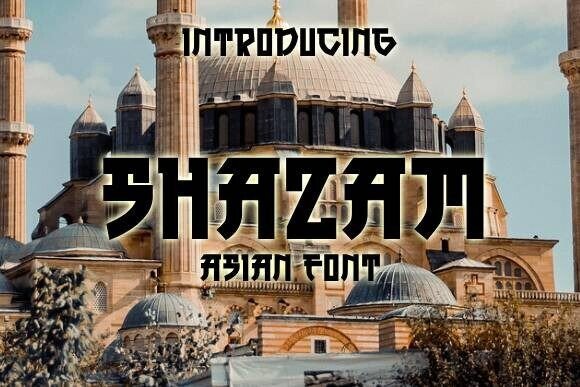
Shazam Font: A Elegant Typeface Inspired by Asian Culture
Are you looking for a font that can add a touch of elegance and sophistication to your designs? Look no further than the Shazam Font, a beautiful typeface inspired by the rich cultural heritage of Asia. In this article, we’ll take a closer look at the Shazam Font, its features, and how you can use it to create stunning designs for posters, t-shirts, and flyers.
What is Shazam Font?
Shazam Font is a elegant font inspired by Asian culture, designed to bring a touch of sophistication and style to your designs. The font features a unique blend of traditional Asian elements, such as intricate lines and curves, with modern typography techniques. The result is a font that is both elegant and versatile, making it perfect for a wide range of design applications.
Features of Shazam Font
The Shazam Font has several features that make it stand out from other fonts. Some of its key features include:
- Elegant and Sophisticated Design: The Shazam Font features a elegant and sophisticated design, perfect for creating high-end designs that require a touch of luxury.
- Inspired by Asian Culture: The font is inspired by the rich cultural heritage of Asia, making it perfect for designs that require a touch of exoticism and elegance.
- Highly Versatile: The Shazam Font is highly versatile, making it perfect for a wide range of design applications, from posters and t-shirts to flyers and brochures.
- Easy to Read: Despite its elegant design, the Shazam Font is easy to read, making it perfect for body text and headlines.
How to Use Shazam Font
The Shazam Font is perfect for a wide range of design applications, including:
- Posters: Use the Shazam Font to create stunning posters that require a touch of elegance and sophistication.
- T-Shirts: The Shazam Font is perfect for designing t-shirts that require a touch of style and elegance.
- Flyers: Use the Shazam Font to create eye-catching flyers that require a touch of sophistication and elegance.
Here are some tips for using the Shazam Font:
- Use it for Headlines: The Shazam Font is perfect for headlines, where its elegant design can really shine.
- Pair it with Other Fonts: The Shazam Font can be paired with other fonts to create a unique and interesting design.
- Experiment with Colors: The Shazam Font looks great in a variety of colors, so don’t be afraid to experiment and find the perfect color for your design.
Benefits of Using Shazam Font
There are several benefits to using the Shazam Font in your designs, including:
- Unique and Elegant Design: The Shazam Font features a unique and elegant design that will set your designs apart from the competition.
- Highly Versatile: The Shazam Font is highly versatile, making it perfect for a wide range of design applications.
- Easy to Read: Despite its elegant design, the Shazam Font is easy to read, making it perfect for body text and headlines.
- Inspired by Asian Culture: The font is inspired by the rich cultural heritage of Asia, making it perfect for designs that require a touch of exoticism and elegance.
The Shazam Font is a beautiful and elegant font that is perfect for designers who want to add a touch of sophistication and style to their designs. With its unique blend of traditional Asian elements and modern typography techniques, the Shazam Font is highly versatile and can be used for a wide range of design applications. Whether you’re designing posters, t-shirts, or flyers, the Shazam Font is a great choice.
- What is Shazam Font?: The Shazam Font is a elegant font inspired by Asian culture, designed to bring a touch of sophistication and style to your designs.